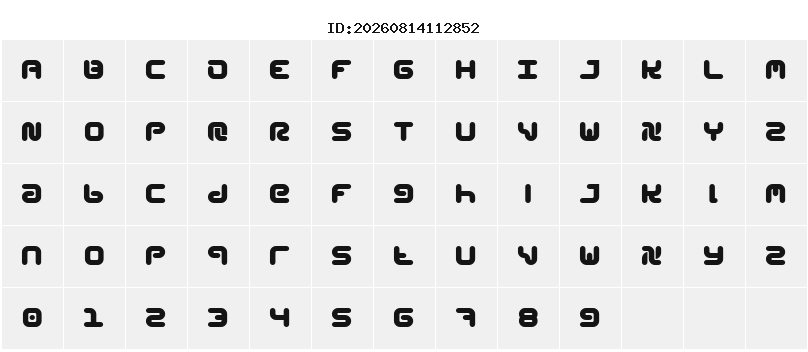
About Styl.ttf
Styl.ttf is a modern, elegant sans-serif font designed for ultimate readability and visual harmony. Perfect for branding, headlines, web design, and print materials.